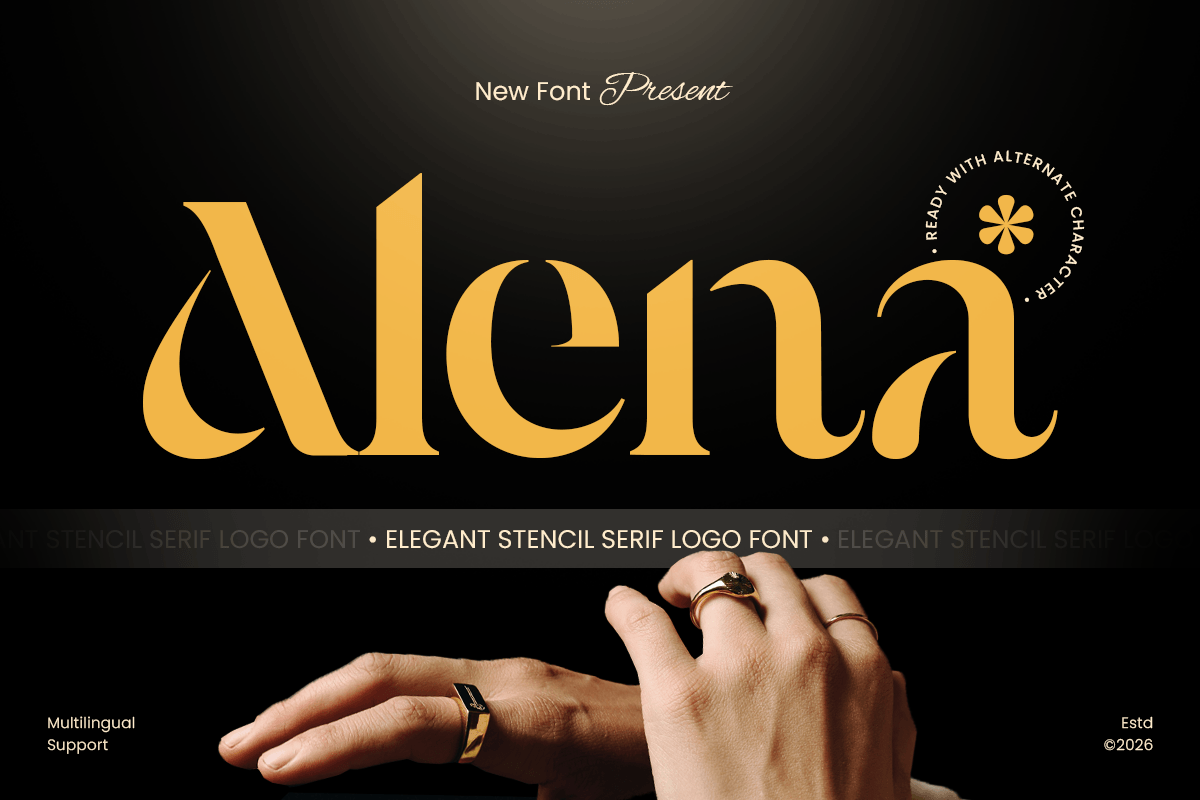
Alena
-Elegant Stencil Serif Logo Font
Alena - Elegant Stencil Serif Logo Font
Alena is an elegant stencil serif logo font designed to merge timeless sophistication with modern artistic character. Featuring refined serif forms combined with carefully crafted stencil cuts, this typeface creates a distinctive visual identity that feels luxurious, stylish, and contemporary.
Its unique stencil details add a bold architectural touch while preserving elegance and readability. Alena is ideal for fashion branding, beauty products, magazine layouts, luxury packaging, and premium logo design where exclusivity and visual impact are essential.
Whether used in branding systems, editorial headlines, invitations, or creative campaigns, Alena delivers a balance of classic refinement and modern innovation that stands out beautifully in both print and digital media.
Alena – Elegant Stencil Serif Logo Font Features
• Elegant serif design with unique stencil detailing
• Perfect for luxury branding, logos, and editorial layouts
• Sophisticated balance of classic elegance and modern style
• Ideal for fashion, beauty, lifestyle, and premium packaging
• OpenType features for enhanced typographic creativity